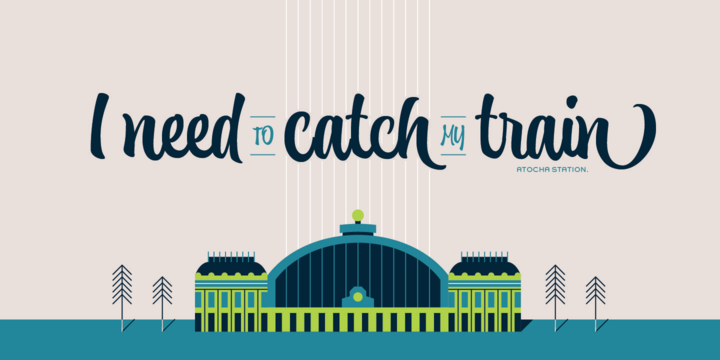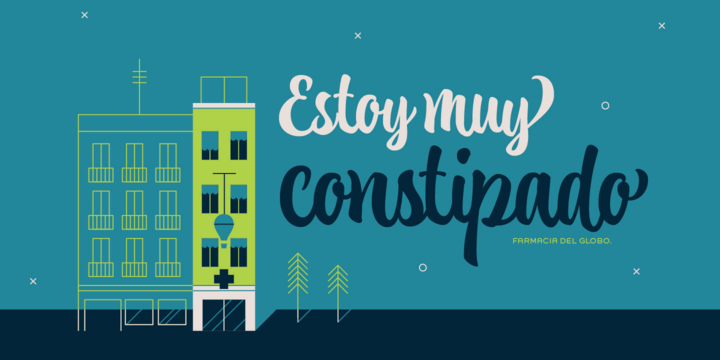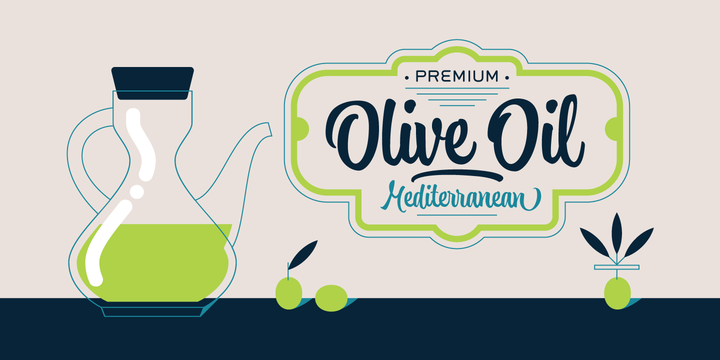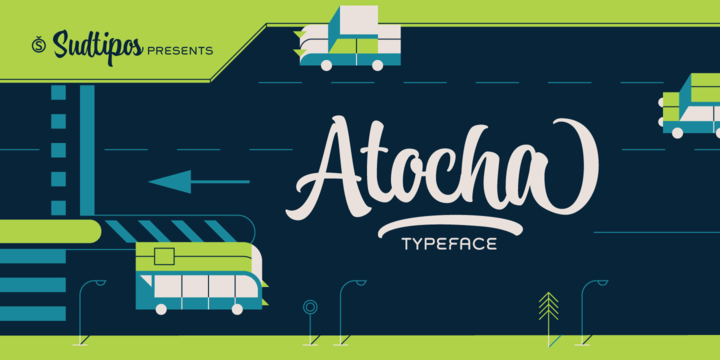
Atocha Font Family
It was expected that Joluvian’s third type font would be inspired by the city where he currently resides: Madrid, Spain. His previous creations had originated in Venezuela (Zulia) and The Philippines (Salamat), both, places where he had once lived.